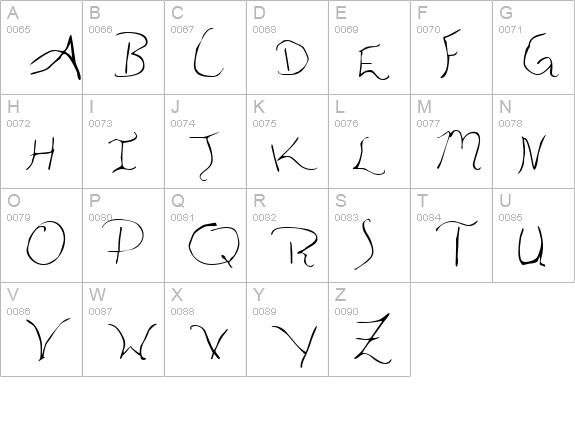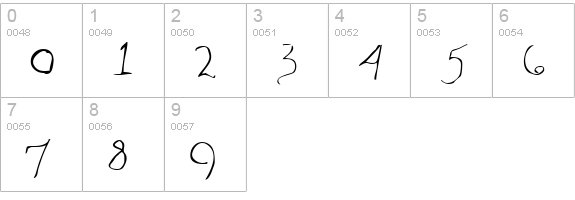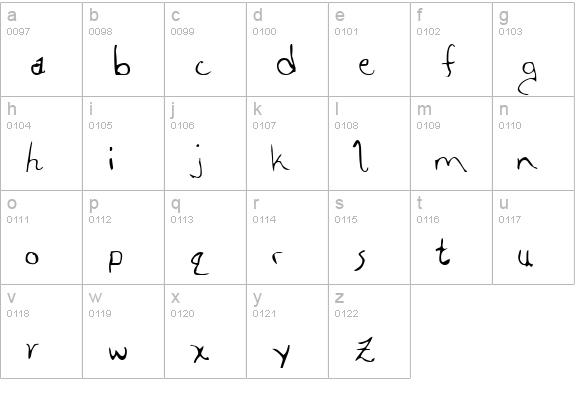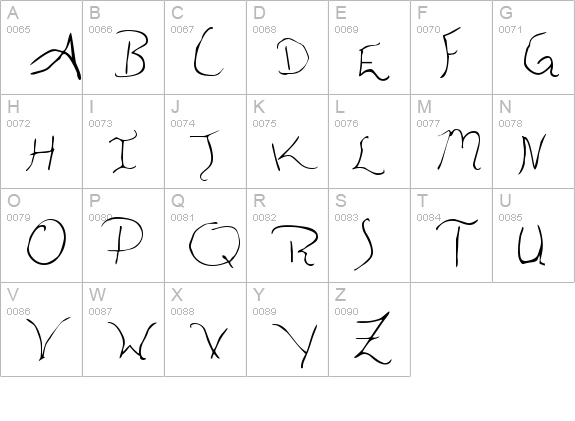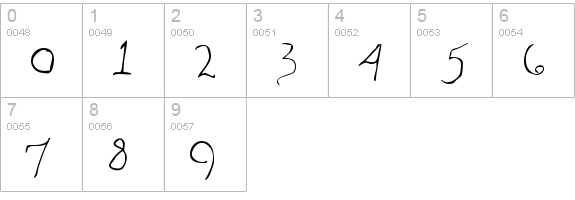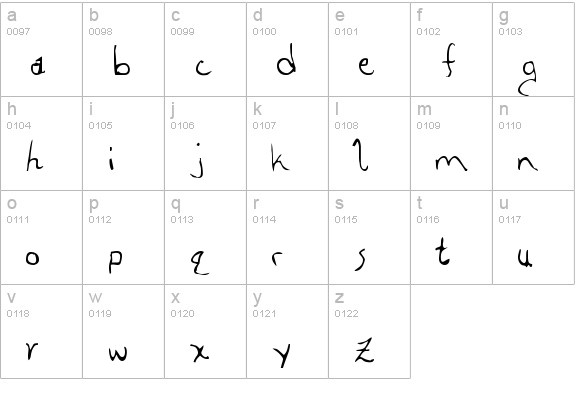
Aleia Abnormal Font Details
Aleia Abnormal font is a uniquely designed typeface that combines modern aesthetics with a touch of eccentricity. Its irregular shapes and quirky angles give it a distinct and eye-catching appearance, making it perfect for projects that require a bold and unconventional look. The font's playful yet sophisticated style is sure to make your designs stand out from the crowd. What's even better is that Aleia Abnormal font is available for free download at FontsMarket.com. This means you can easily access this dynamic and innovative font to enhance your creative projects without any cost. Whether you're working on branding, advertising, or any other design project, Aleia Abnormal font is a versatile choice that will add a unique and memorable touch to your work. Download it today and let your creativity shine!